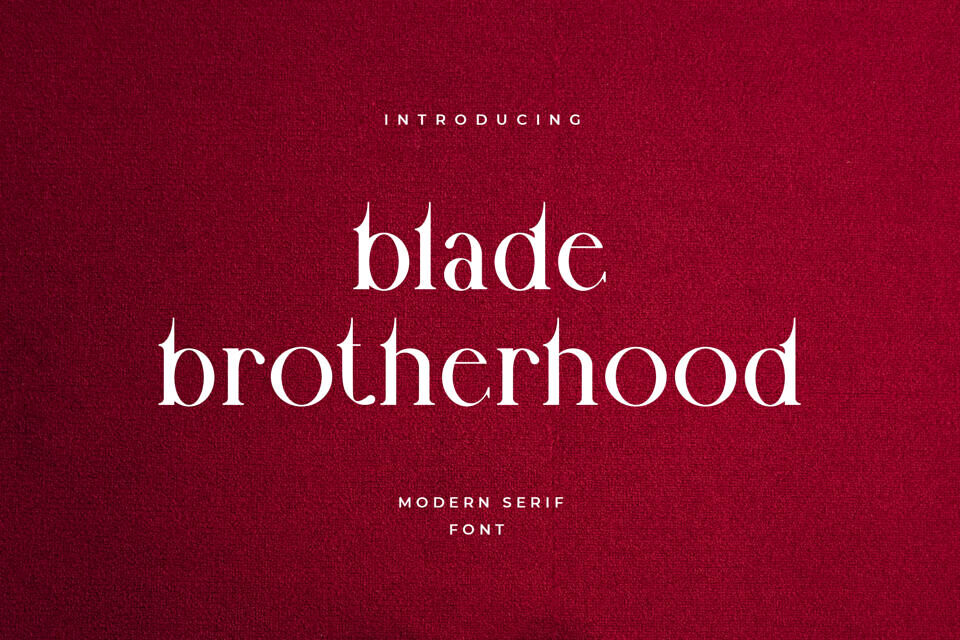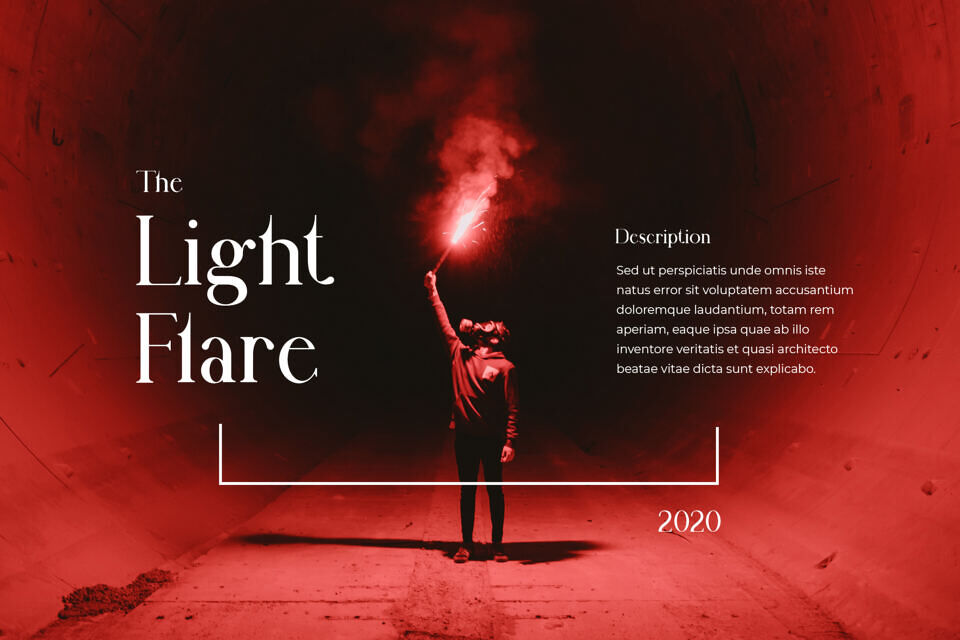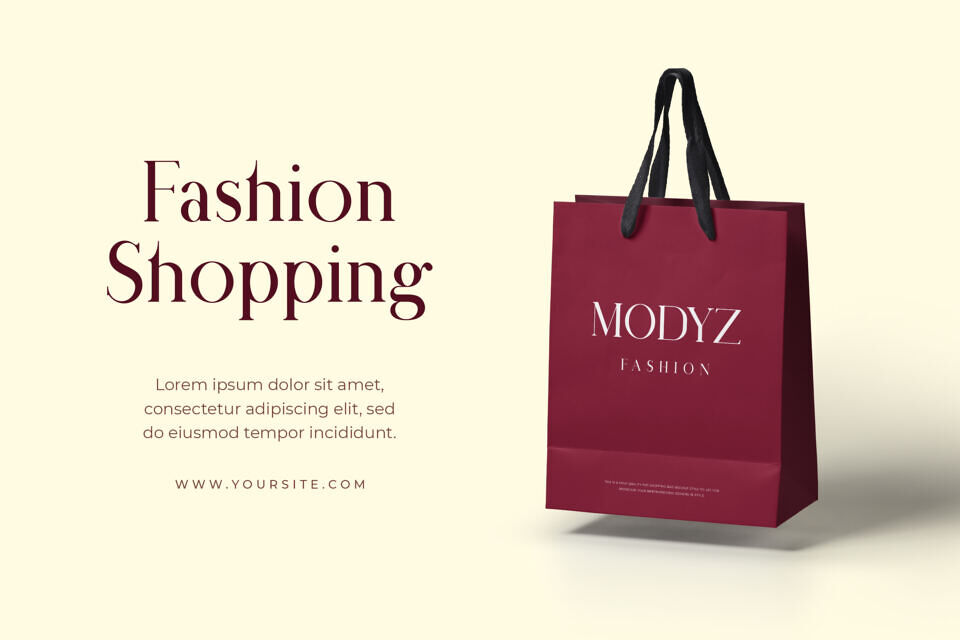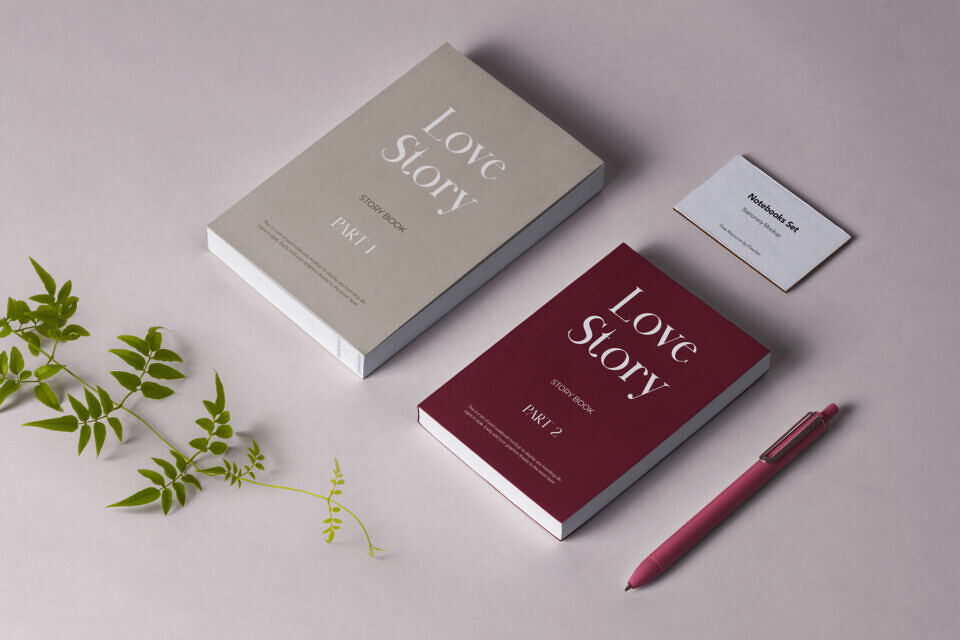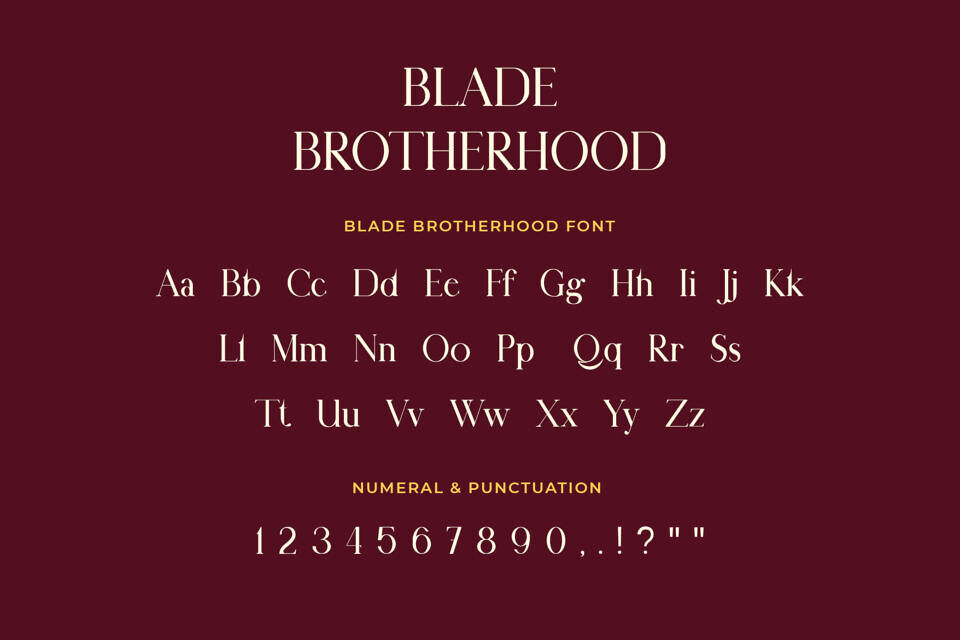
Blade Brotherhood Font
Blade Brotherhood is a Serif Typeface that has a slightly unique look from the usual serif family. Its uniqueness is sharp like a blade at the top of the font, but still neat typical serif.
This attractive and premium font is perfect for a variety of brands and projects that require clear and classy font types, such as hotels, salons, restaurants, cafes, headlines, posters, community, branding, packaging, presentations, short texts. and others.